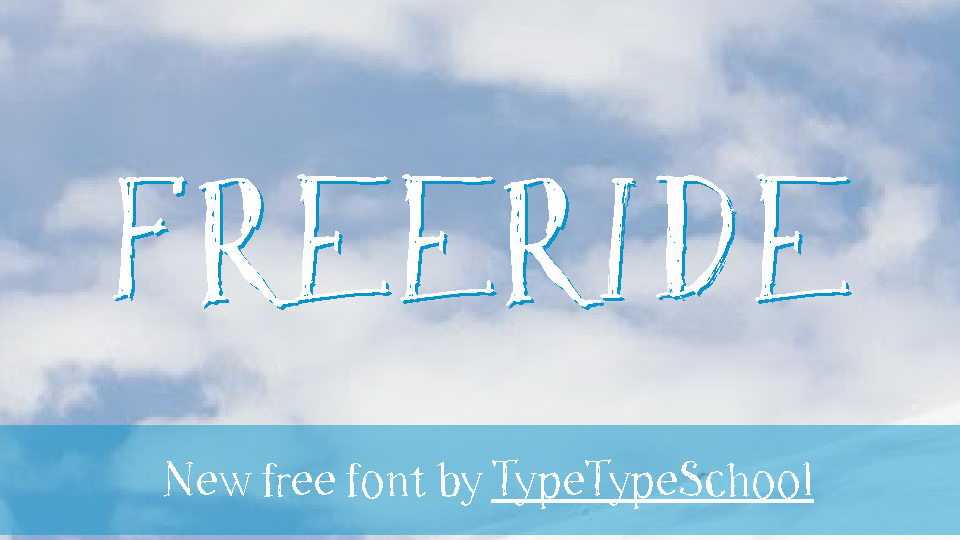
Download Freeride font, a hand crafted typeface that imitates a serif. The font is perfect for marking hand-made products, as well as photo captions on Instagram.
Designer: Nina Mukha